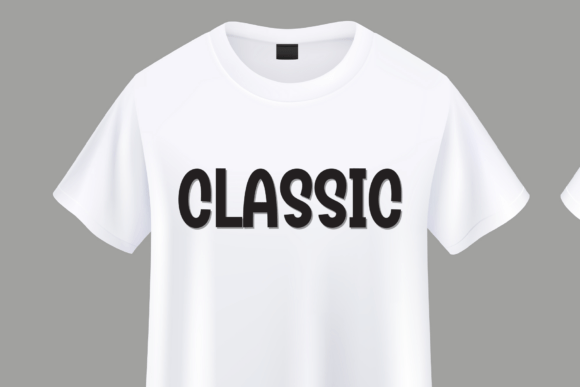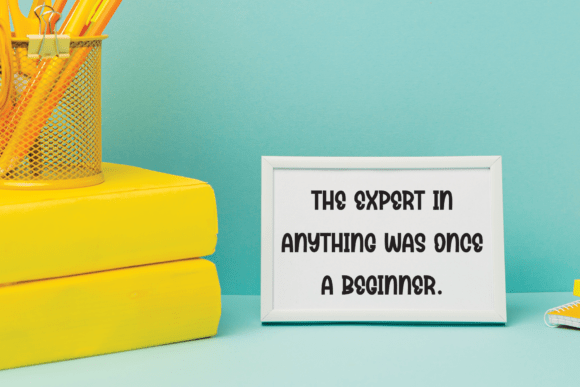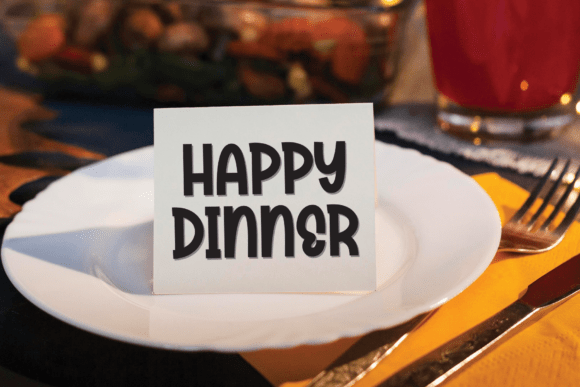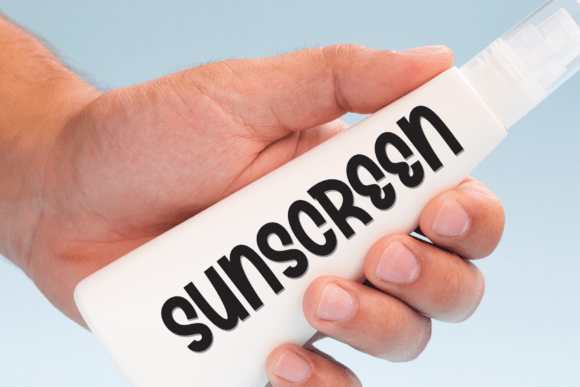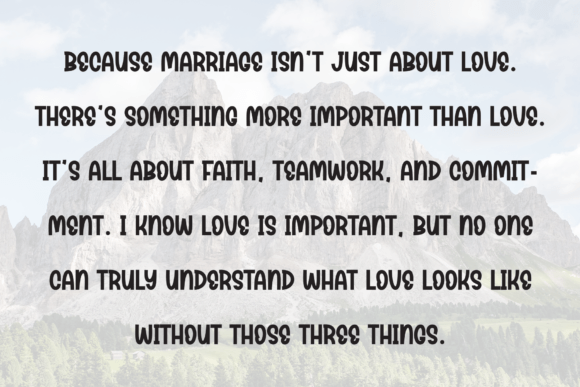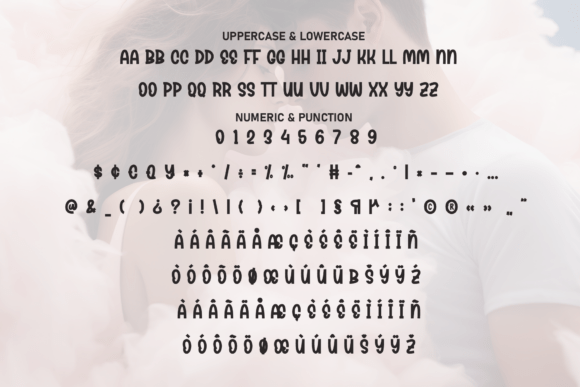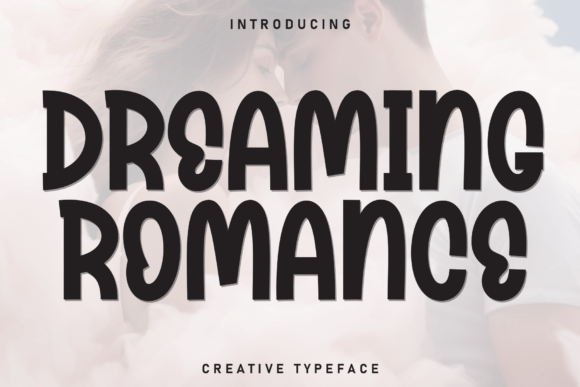
Dreaming Romance Font: The Perfect Choice for Whimsical Designs
Are you looking for a font that can add a touch of romance and whimsy to your designs? Look no further than the Dreaming Romance font. This charming display font is perfect for creating love-themed designs, greeting cards, children’s content, and social media posts that require a personal and playful touch. In this article, we’ll explore the features and benefits of the Dreaming Romance font and why it’s a great choice for designers and crafters.
The Characteristics of Dreaming Romance Font
Dreaming Romance is a fun and charming display font that is full of personality. Its rounded letterforms and soft curves give it a dreamy, nostalgic feel that’s hard to resist. The font’s playful nature makes it perfect for headlines, packaging, and creative branding. Whether you’re designing a romantic getaway brochure, a children’s book, or a social media post, Dreaming Romance is sure to bring warmth and whimsy to your project.
Perfect for Love-Themed Designs
Dreaming Romance is a font that’s specifically designed to evoke feelings of love and romance. Its soft, curved lines and playful nature make it perfect for creating romantic and whimsical designs. Whether you’re designing a wedding invitation, a Valentine’s Day card, or a romantic getaway brochure, Dreaming Romance is the perfect choice. The font’s dreamy feel will transport your readers to a world of romance and fantasy, making it perfect for love-themed designs.
Great for Greeting Cards and Children’s Content
Dreaming Romance is not just limited to love-themed designs. Its playful nature makes it perfect for greeting cards, children’s content, and social media posts. The font’s soft curves and rounded letterforms make it easy to read and fun to look at, making it perfect for kids’ books, nursery rhymes, and children’s educational materials. Additionally, the font’s whimsical feel makes it great for creating fun and engaging social media posts that are sure to grab the attention of your followers.
Dreaming Romance offers a range of benefits for designers and crafters. Here are just a few:
- Easy to Read: The font’s soft curves and rounded letterforms make it easy to read, even at small sizes.
- Versatile: Dreaming Romance can be used for a wide range of projects, from love-themed designs to children’s content and social media posts.
- Playful: The font’s playful nature makes it perfect for creating fun and engaging designs that are sure to grab the attention of your audience.
- Customizable: Dreaming Romance can be customized to fit your project’s specific needs, making it perfect for branding and creative projects.
How to Use Dreaming Romance Font
- Pair it with Other Fonts: Dreaming Romance pairs well with other fonts, such as sans-serif fonts, to create a unique and visually appealing design.
- Use it for Headlines: The font’s playful nature makes it perfect for headlines and titles.
- Add a Personal Touch: Use Dreaming Romance to add a personal touch to your designs, such as in greeting cards, invitations, and social media posts.